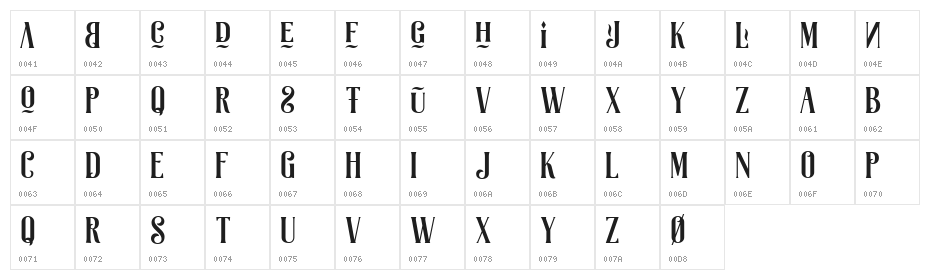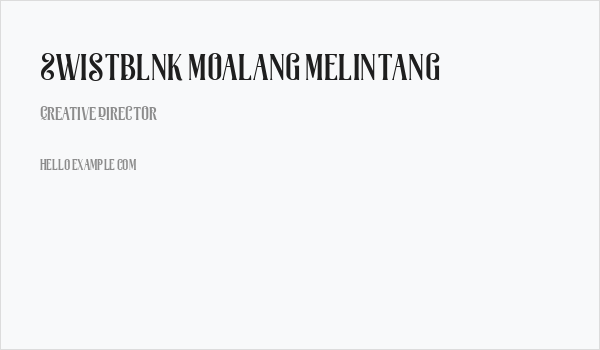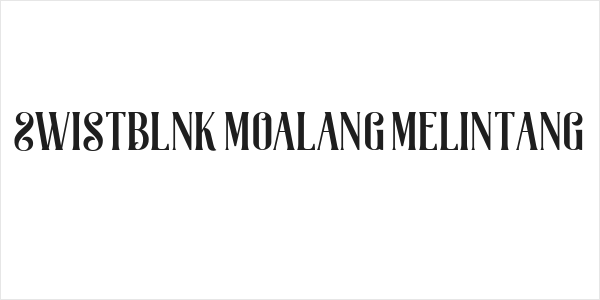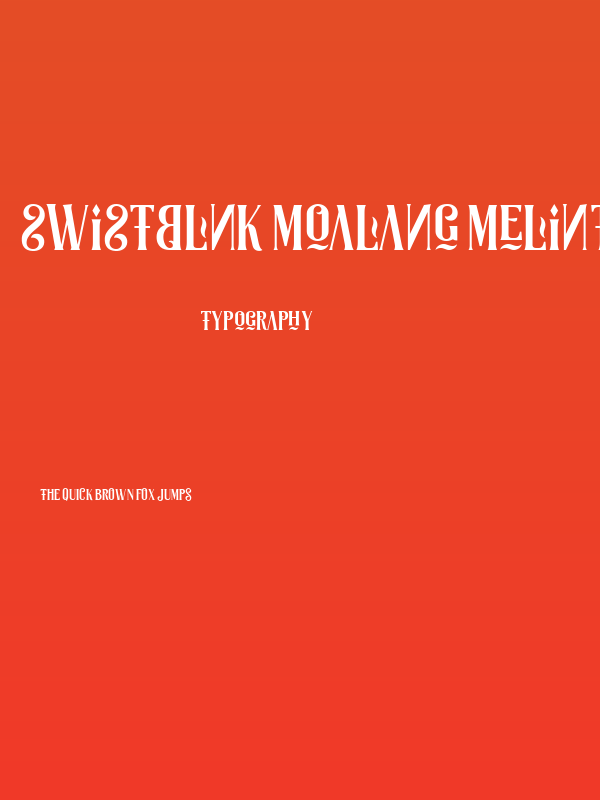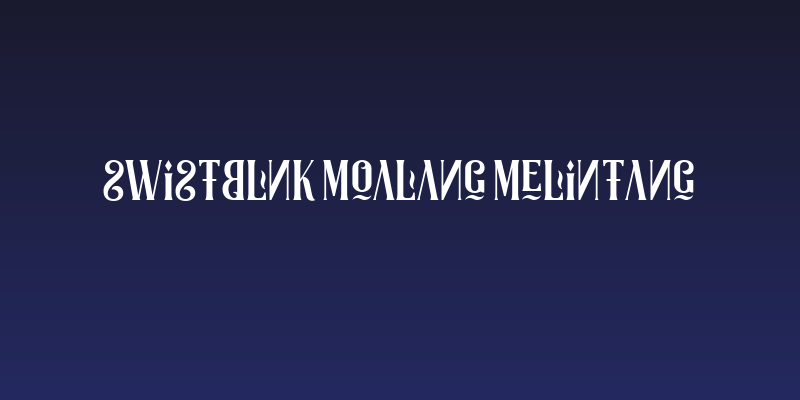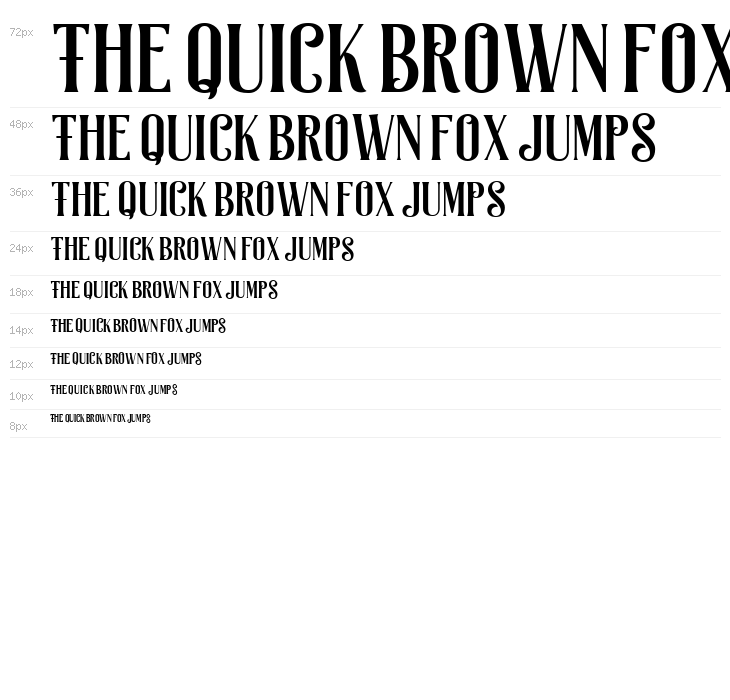
Swistblnk Moalang Melintang Font
Swistblnk Moalang Melintang Description
This font features a bold and decorative style with a unique blend of sharp angles and smooth curves. The uppercase letters are particularly striking, with intricate details and flourishes that give each character a distinct personality. The lowercase letters maintain a consistent style, offering a harmonious balance with the uppercase. The numbers and special characters are equally ornate, ensuring a cohesive look across all text elements. This font's high contrast in stroke thickness adds to its dramatic appearance, making it ideal for eye-catching designs.
Proposed ProjectsIdeal for branding, poster design, album covers, and any project requiring a dramatic and artistic flair.